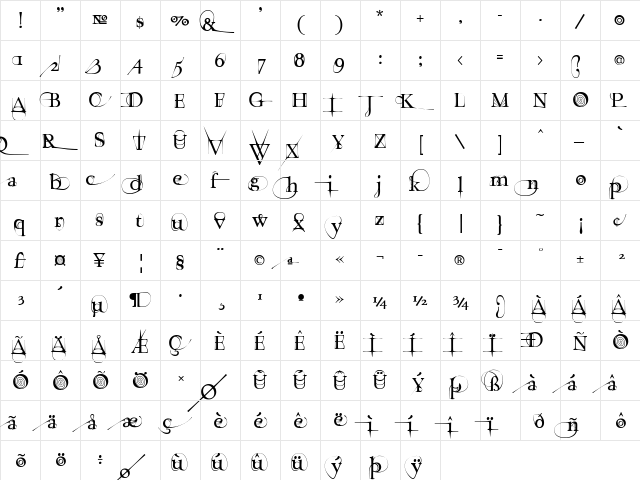
Tension Regular
Design Context for Tension Typeface
Tension is a composed and adaptable typeface that performs quietly and consistently across a wide range of design contexts.